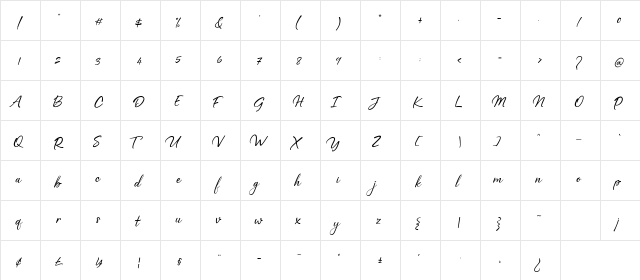
reality Regular
Design Context for reality Typeface
reality is a composed and adaptable typeface that performs quietly and consistently across a wide range of design contexts.
Pro Tip: Use reality in both headline and body roles to test its range before committing to a single application.